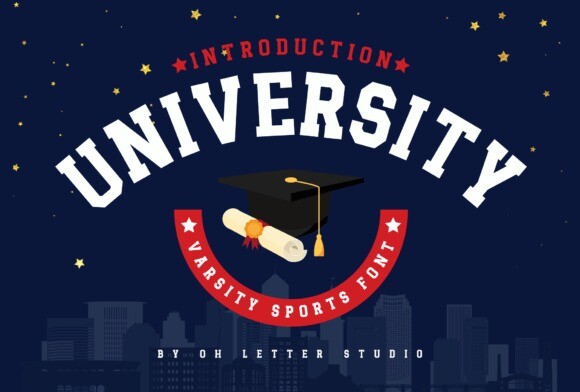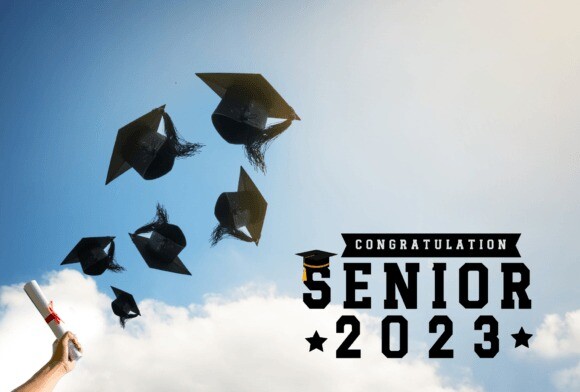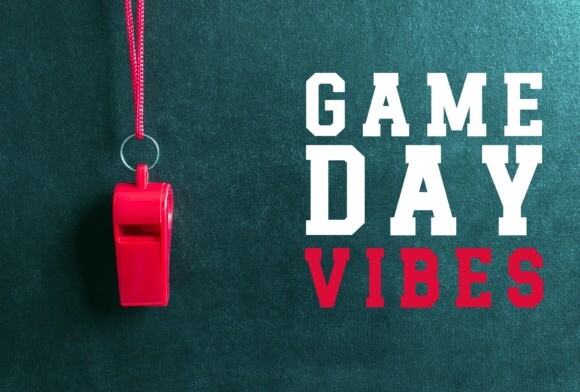
University Font
University Font is an authentic sports display font inspired by college typography. This bold and dynamic font captures the energy and excitement of sports. Features a strong and commanding look, with thick lines and sharp edges that convey power and athleticism. The letterforms are carefully crafted to create a sense of motion and speed, making this font a great choice for conveying movement and action.